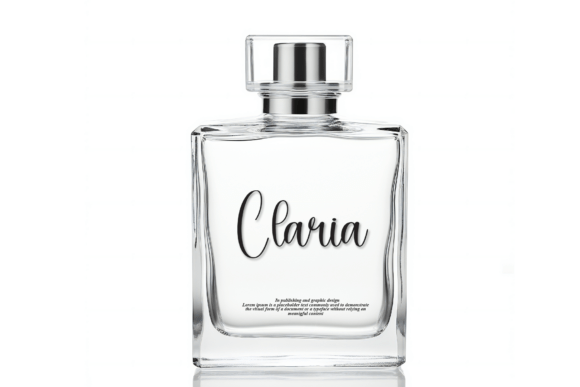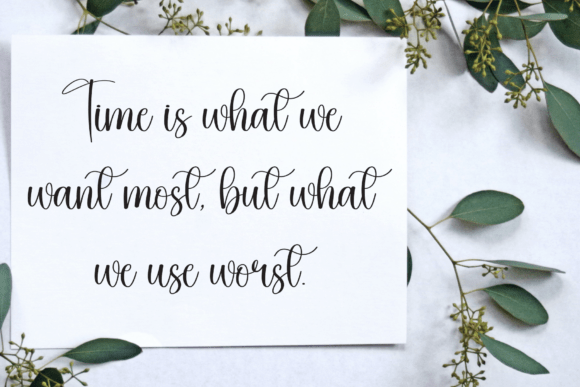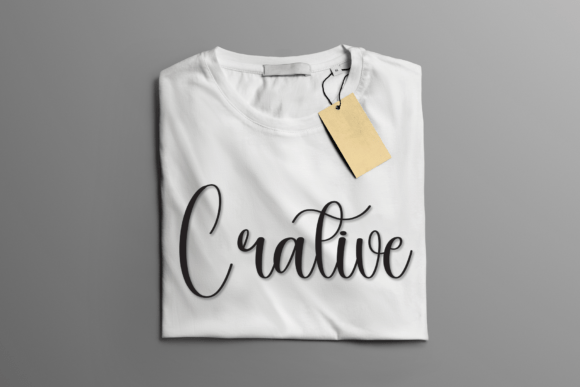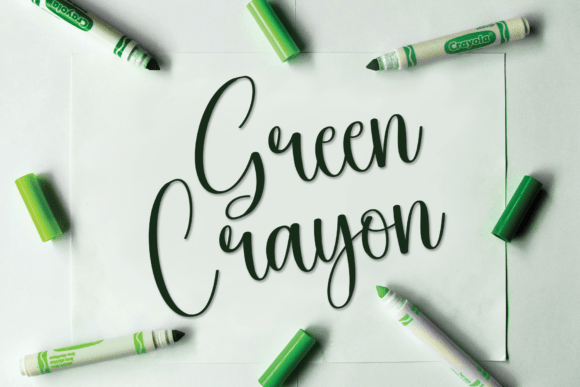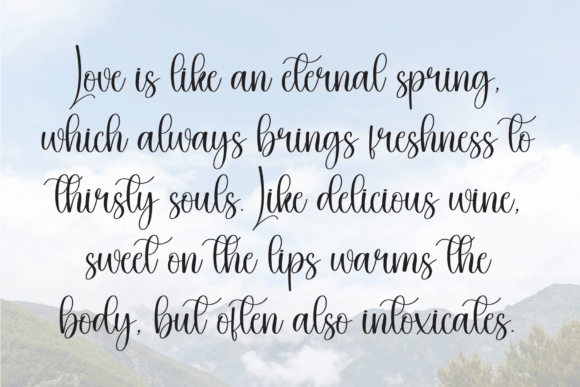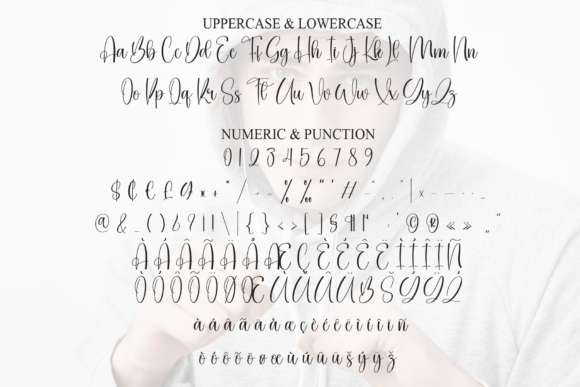
Unleash Your Creativity with Badboy Font: The Ultimate Choice for Fashion Forward Designers
In the world of typography, fonts play a crucial role in conveying the tone and personality of a brand. For designers and crafters looking to make a statement, Badboy Font is the perfect choice. This bold and confident handwritten script font is designed to add a touch of stylish curves and strong personality to any design project. In this article, we’ll explore the features and benefits of Badboy Font, and why it’s the go-to choice for fashion branding, logos, posters, album covers, and standout social media graphics.
The Making of Badboy Font: A Perfect Blend of Style and Elegance
Badboy Font is a carefully crafted handwritten script font that exudes confidence and sophistication. Its flowing lines and edgy elegance make it perfect for designers looking to add a touch of modernity to their designs. The font’s unique curves and strokes are designed to convey a sense of attitude and romance, making it a versatile choice for a wide range of design projects.
Key Features of Badboy Font
- Bold and Confident: Badboy Font is designed to make a statement. Its bold and confident strokes are perfect for creating eye-catching headlines and titles.
- Handwritten Script: The font’s handwritten script style adds a touch of personality and elegance to any design project.
- Stylish Curves: Badboy Font features stylish curves and flowing lines that add a touch of sophistication to any design.
- Strong Personality: The font’s unique personality shines through in every stroke, making it perfect for designers looking to create a lasting impression.
Why Choose Badboy Font for Your Design Projects?
Badboy Font is the perfect choice for designers and crafters looking to add a touch of style and elegance to their design projects. Here are just a few reasons why:
- Fashion Branding: Badboy Font is perfect for fashion branding, adding a touch of sophistication and elegance to any design.
- Logos: The font’s bold and confident strokes make it perfect for creating eye-catching logos that stand out.
- Posters: Badboy Font is designed to make a statement, making it perfect for creating eye-catching posters and flyers.
- Album Covers: The font’s edgy elegance makes it perfect for creating album covers that stand out.
- Social Media Graphics: Badboy Font is perfect for creating standout social media graphics that grab attention.
Tips for Using Badboy Font in Your Design Projects
Here are a few tips for using Badboy Font in your design projects:
- Use it as a Headline Font: Badboy Font is perfect for creating eye-catching headlines and titles.
- Pair it with a Simple Font: Pair Badboy Font with a simple font to create a striking contrast.
- Experiment with Colors: Badboy Font looks great in a variety of colors, so don’t be afraid to experiment.
- Use it to Add Emphasis: Use Badboy Font to add emphasis to certain words or phrases in your design.